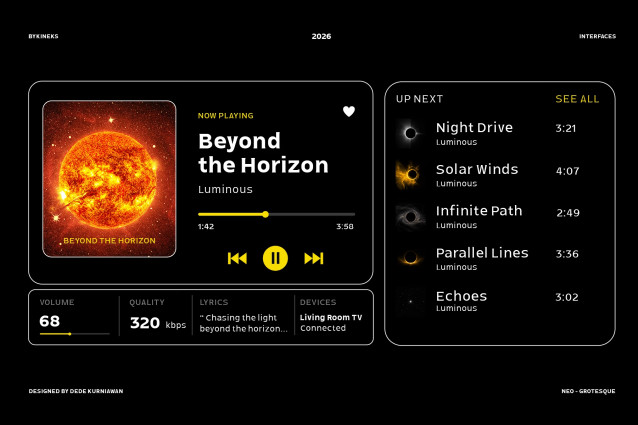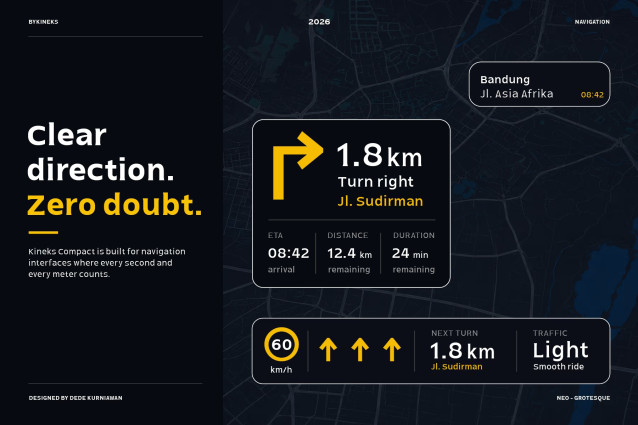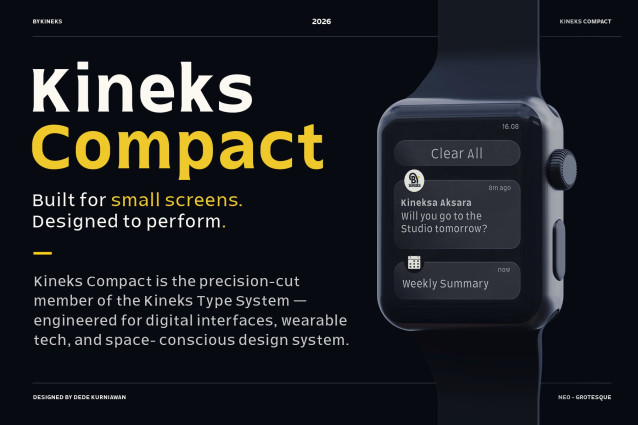
The Kineks Compact Font
Kineks Compact is a neo-grotesque sans serif typeface designed for space-efficient digital interfaces, compact displays, and environments where information needs to remain clear within limited space.
As the compact member of the Kineks Type System, Kineks Compact extends the visual DNA of Kineks into smaller, denser, and more information-driven applications. Its compact proportions, controlled spacing, clear letterforms, and balanced x-height are designed to maintain clarity while allowing more information to fit within constrained layouts.
The full commercial family features:
• 10 Font Styles
• Neo-Grotesque Design
• Compact Proportions
• Space-Efficient Typography
• Designed for Digital Interfaces
• Small Display Support
• Multilingual Language Support
• OpenType Features
• Stylistic Alternates
• Standard Ligatures
Ideal for:
• UI/UX Design
• Mobile Apps
• Digital Interfaces
• Dashboards
• Navigation Systems
• Wearable Devices
• Automotive Displays
• Notifications
• Information Design
• Gaming HUDs
• System Interfaces
• Data & Finance Interfaces